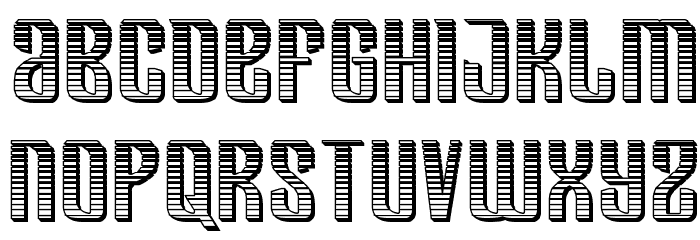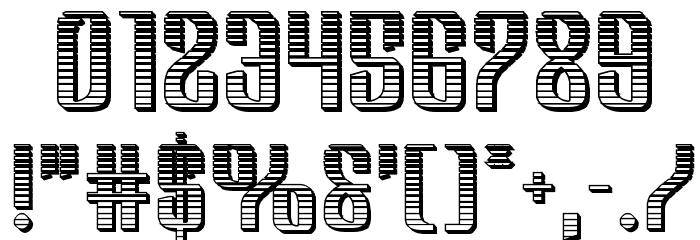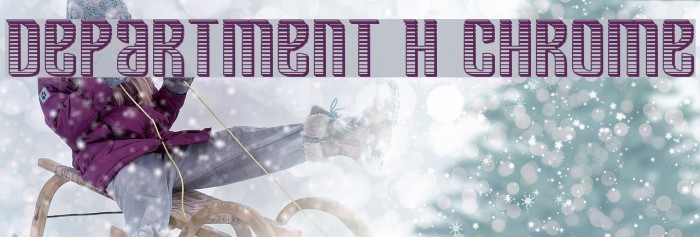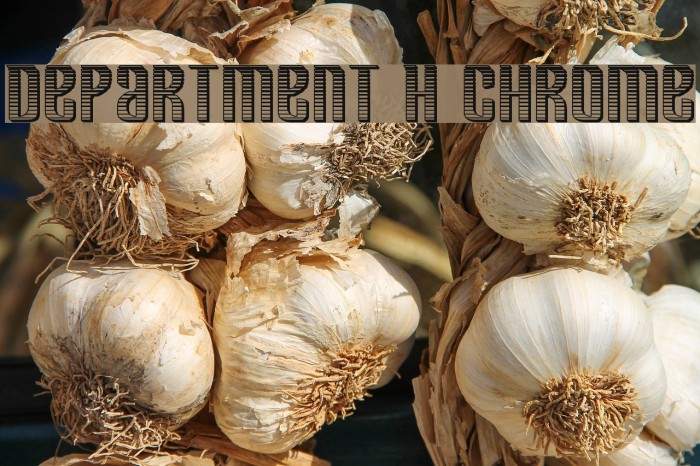
Department H Chrome Font
This font features a bold, three-dimensional appearance with a striped pattern that gives it a unique, eye-catching look. The letters are uppercase, with a consistent width and height, creating a uniform and structured appearance. The design incorporates a shadow effect, enhancing the depth and making it stand out on any background. The characters are well-defined and maintain a balance between decorative elements and readability. This font is ideal for projects that require a strong visual impact and a modern, industrial feel.
A bold, three-dimensional font with a striped pattern and shadow effect.
- Proposed Projects: Great for posters, logos, headlines, and any design needing a striking, modern touch.